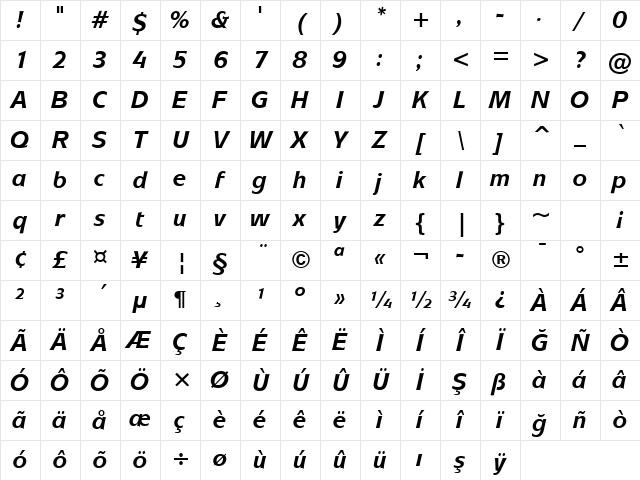
Mixage Bk BT Bold Italic
Design Context for Mixage Bk BT
Mixage Bk BT is a composed and adaptable typeface that performs quietly and consistently across a wide range of design contexts. The slanted form adds forward momentum and visual energy. Its bold stroke weight gives it real presence on the page.
Pro Tip: Use Mixage Bk BT for emphasis, pull quotes, and subheadings where its slanted energy can add rhythm to the layout.